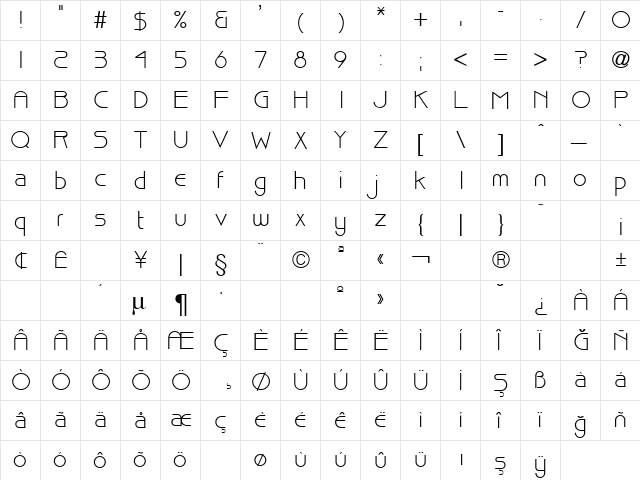
TR Brisk Regular
Design Context for TR Brisk Typeface
TR Brisk offers clean, dependable letterforms without strong stylistic allegiance, making it a practical choice for designers who need flexibility.
Pro Tip: Pair TR Brisk with a font of contrasting weight or personality to build a more expressive typographic hierarchy.